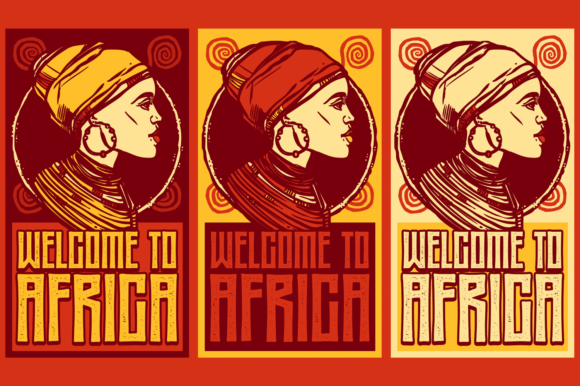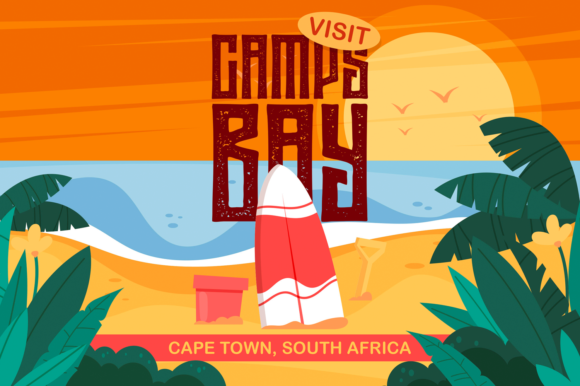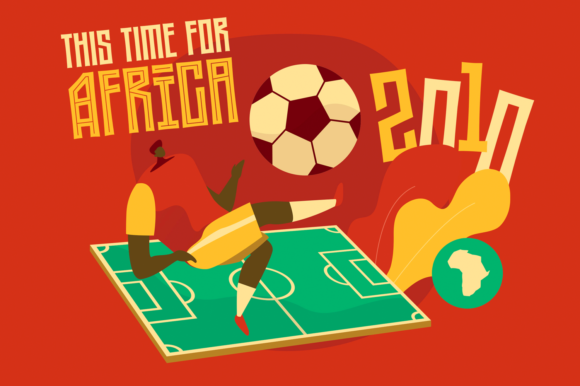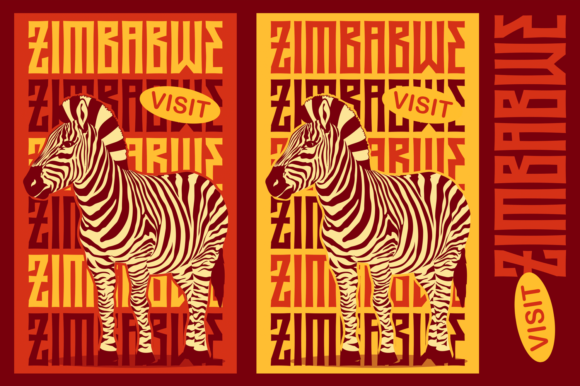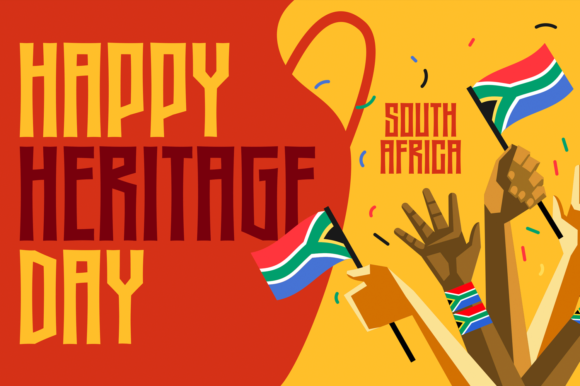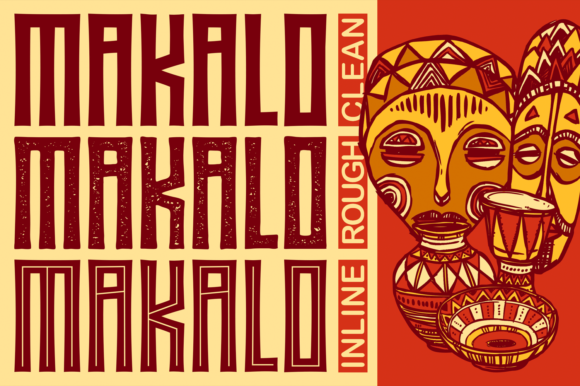
Introduction to Makalo Font Font
Fonts play a crucial role in design, and the Makalo Font font is a typeface that brings both character and versatility to any project. Whether you’re working on a branding project, a website, or a print design, the Makalo Font font offers a unique style that can elevate your work.
Makalo is a cool and vintage styled display font.
Key Features of Makalo Font Font
Why Choose Makalo Font Font?
The Makalo Font font is more than just a typeface – it’s a design tool that helps you communicate your message with style and clarity. Its unique character set and versatile design make it suitable for a wide range of applications, from elegant invitations to bold headlines.
With its carefully crafted letterforms and balanced proportions, the Makalo Font font ensures readability and visual appeal across all mediums.
What makes Makalo Font font special?
The Makalo Font font stands out with its unique design, exceptional readability, and versatility across various design applications.